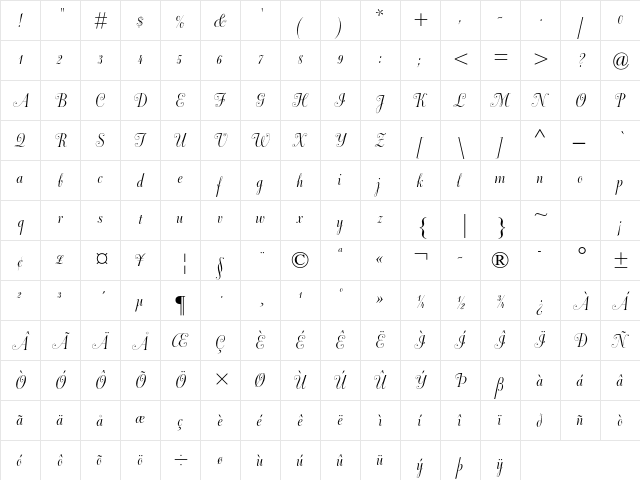
Dorchester Script MT Std Regular
Design Context for Dorchester Script MT Std Typeface
Dorchester Script MT Std brings a calligraphic fluidity to the page — its connecting strokes and expressive curves give it an unmistakably human quality.
Font Pairing: Combine Dorchester Script MT Std with a simple geometric sans for maximum contrast — the tension between flowing curves and clean structure is a classic typographic pairing.
Pro Tip: Pair Dorchester Script MT Std with a clean sans-serif for supporting text. The contrast between fluid script and geometric structure creates an elegant typographic hierarchy.